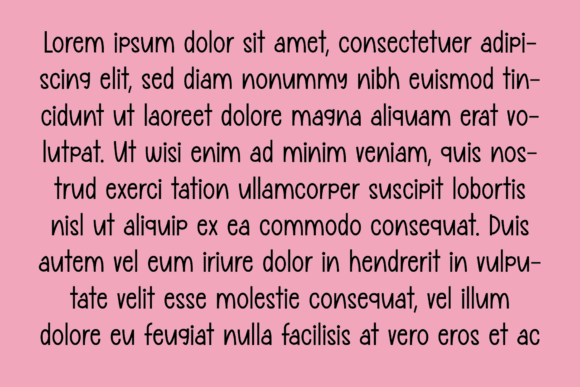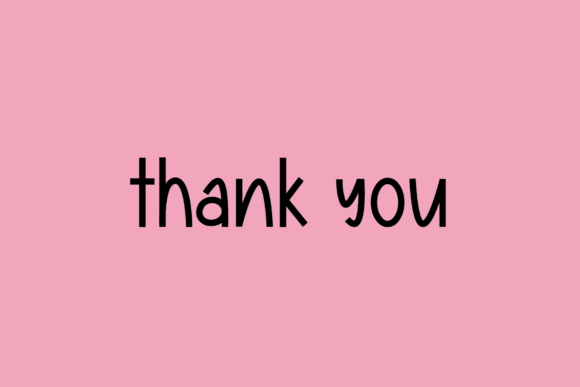
Aglaja Font: The Fun and Friendly Handwritten Font to Elevate Your Designs
Are you tired of using the same old fonts in your designs? Look no further than the Aglaja font, a fun and friendly handwritten font that’s sure to brighten up any project. With its whimsical and quirky style, Aglaja is the perfect addition to any designer’s toolkit. In this article, we’ll explore the features and benefits of the Aglaja font, and show you how to use it to take your designs to the next level.
What is Aglaja Font?
Aglaja is a handwritten font that’s designed to add a touch of personality to your designs. Its unique and quirky style makes it perfect for a wide range of projects, from logos and wedding invitations to quotes, advertisements, and more. Whether you’re a designer, crafty DIY enthusiast, or simply someone who loves to create, Aglaja is a font that’s sure to inspire.
Key Features of Aglaja Font
So what makes Aglaja font so special? Here are just a few of its key features:
- Handwritten style: Aglaja has a warm and personal feel that’s perfect for adding a touch of personality to your designs.
- Whimsical and quirky: This font is fun and playful, making it perfect for projects that need a bit of flair.
- Versatile: Aglaja can be used for a wide range of projects, from logos and branding to invitations, quotes, and more.
- Easy to read: Despite its playful style, Aglaja is easy to read and understand, making it perfect for body text and headlines.
Uses for Aglaja Font
So what can you use Aglaja font for? The possibilities are endless! Here are just a few ideas to get you started:
- Logos and branding: Aglaja is perfect for creating unique and memorable logos that will help your brand stand out.
- Wedding invitations: Add a touch of whimsy and romance to your wedding invitations with Aglaja font.
- Quotes and posters: Aglaja is perfect for creating eye-catching quotes and posters that will grab attention.
- Advertisements: Use Aglaja to add a playful touch to your ads and make them more engaging.
- Print and magazines: Aglaja is a great choice for print projects, including magazines, brochures, and more.
Tips for Using Aglaja Font
Here are a few tips for getting the most out of Aglaja font:
- Use it with confidence: Aglaja is a bold and playful font, so don’t be afraid to use it as a statement piece in your designs.
- Experiment with colors: Aglaja looks great in a wide range of colors, so don’t be afraid to experiment and find the perfect hue for your project.
- Pair it with other fonts: Aglaja pairs well with a wide range of fonts, so feel free to get creative and try out different combinations.